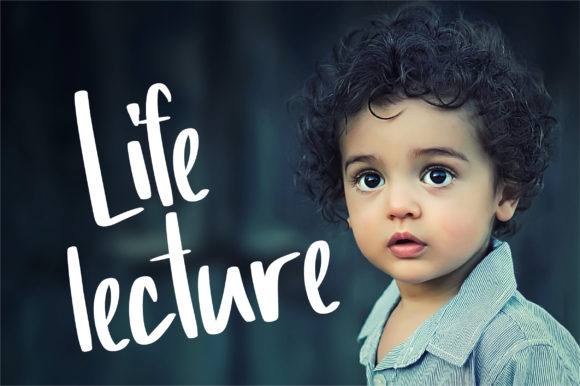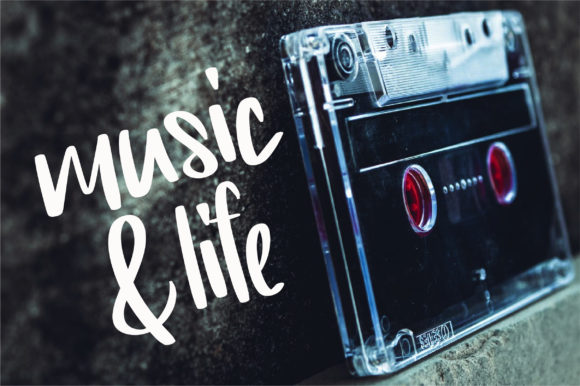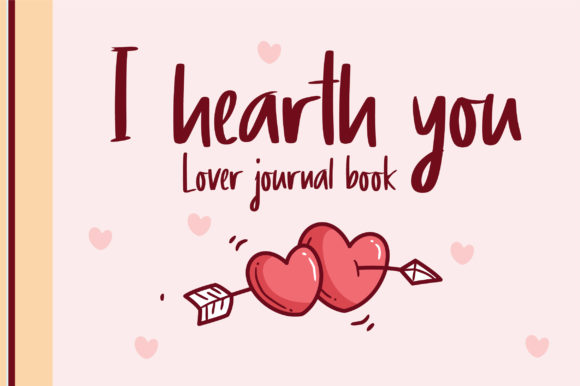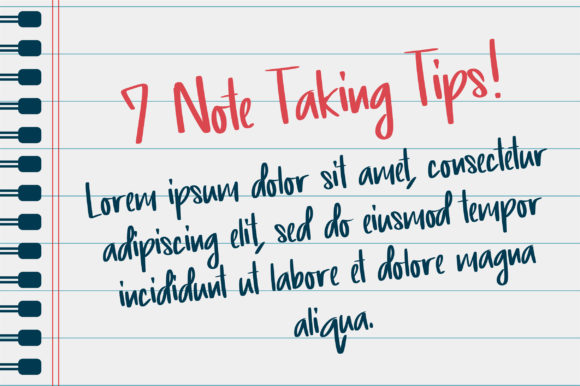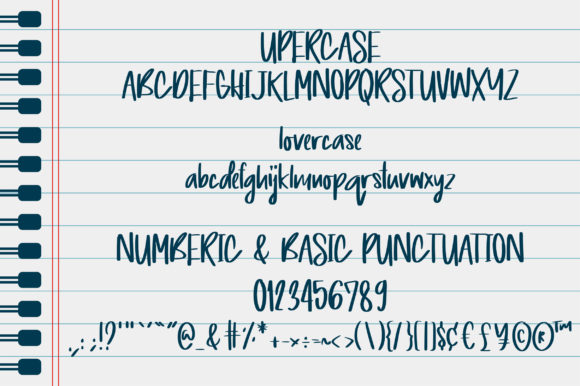
Journal Love Book Font
About Journal Love Book Font
Journal Love Book is a cute handwritten font. Get inspired by its authentic feel and use it to create gorgeous wedding invitations, beautiful stationary art, eye-catching social media posts, and cute greeting cards.